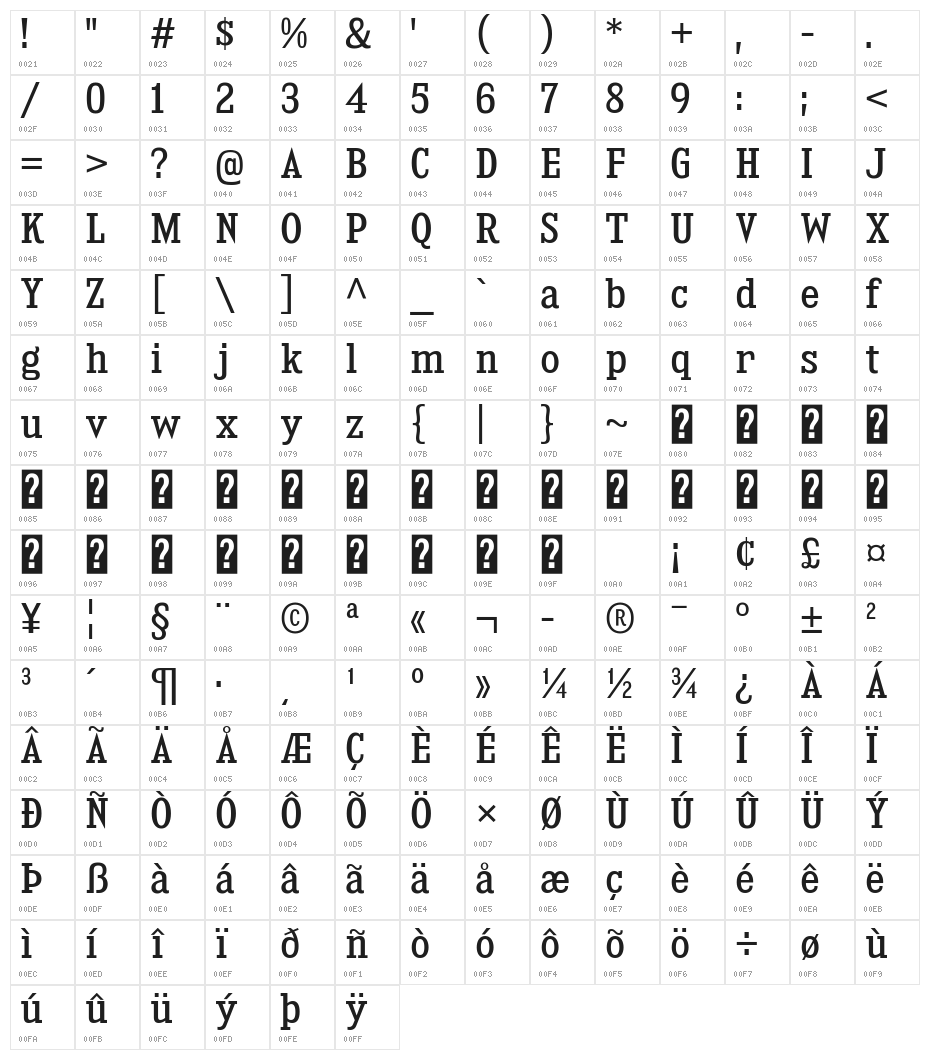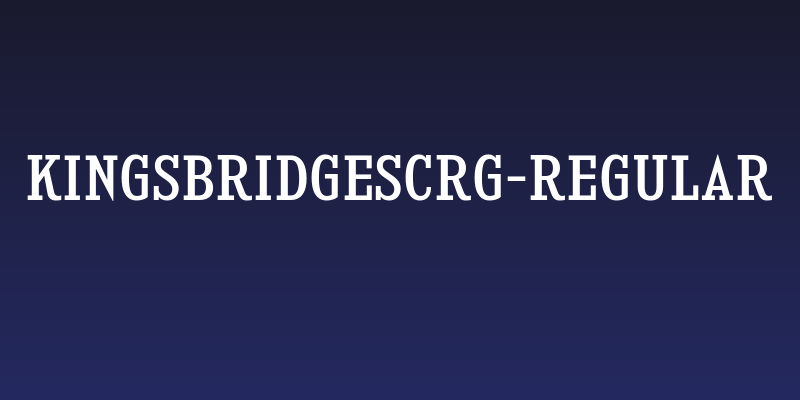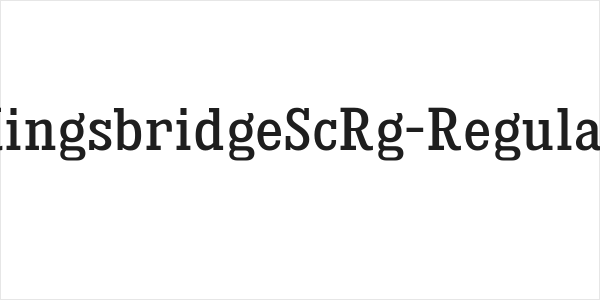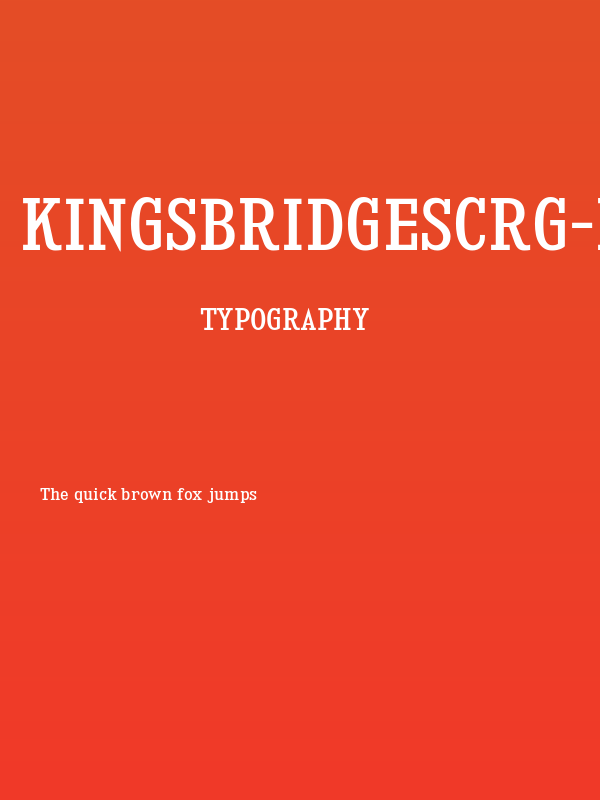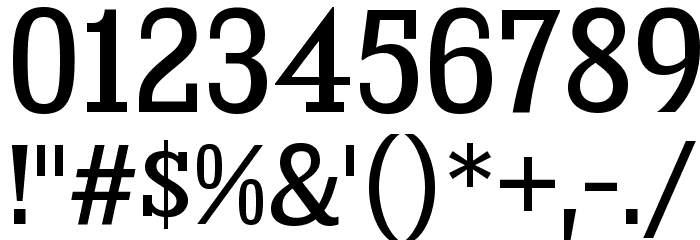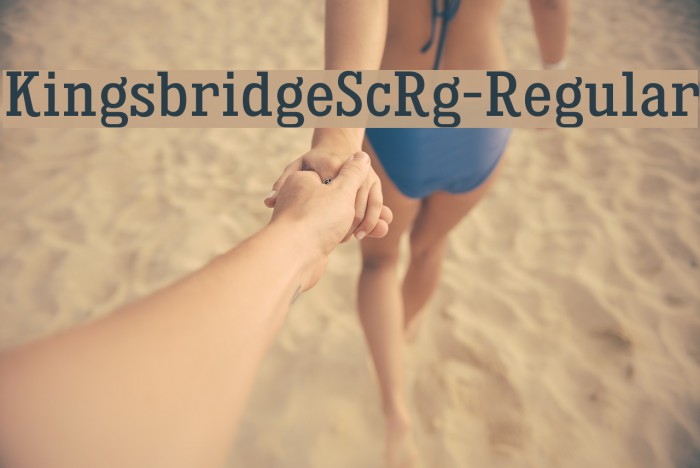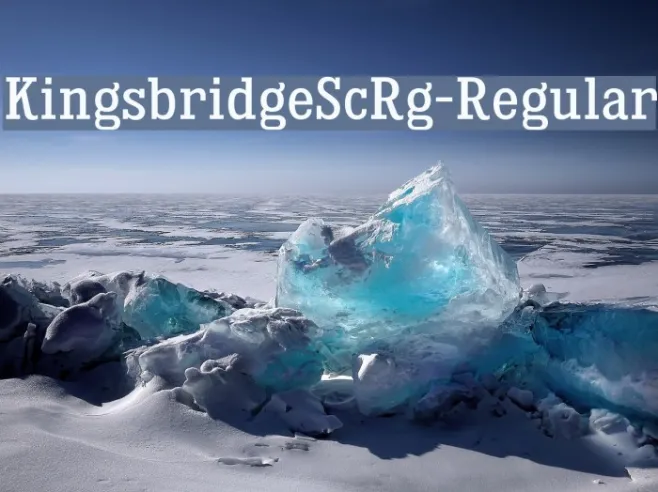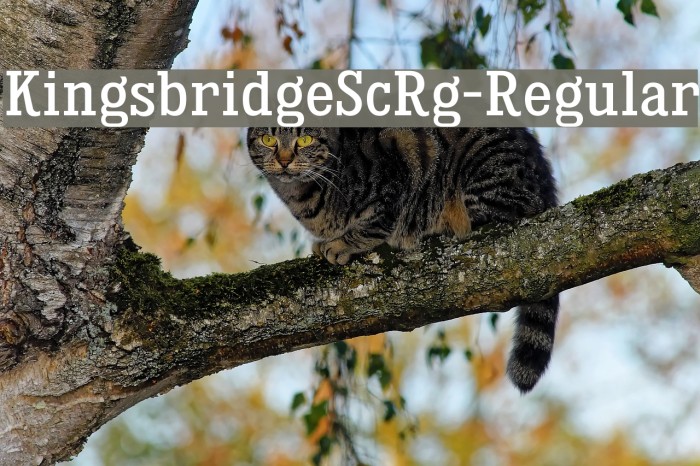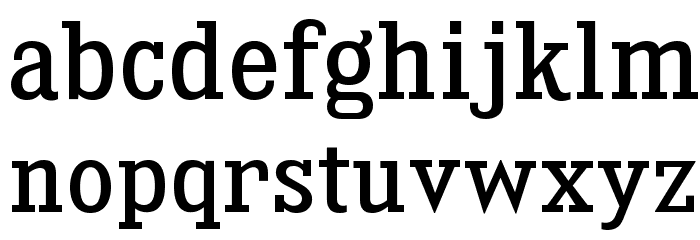
KingsbridgeScRg-Regular Font
KingsbridgeScRg-Regular Description
This font exhibits a classic serif style with strong, defined strokes and a traditional appearance. The serifs are prominent, adding a touch of elegance and readability, making it suitable for both print and digital media. The uppercase letters are bold and commanding, while the lowercase letters maintain a consistent and harmonious flow. The numerals are clear and distinct, ensuring legibility in various contexts. Special characters are well-integrated, maintaining the overall aesthetic of the font. The balance between thick and thin strokes provides a medium contrast, enhancing its readability without compromising on style.
| Proposed Projects | This font is perfect for editorial design, book covers, formal invitations, and corporate branding where a classic and authoritative look is desired. |